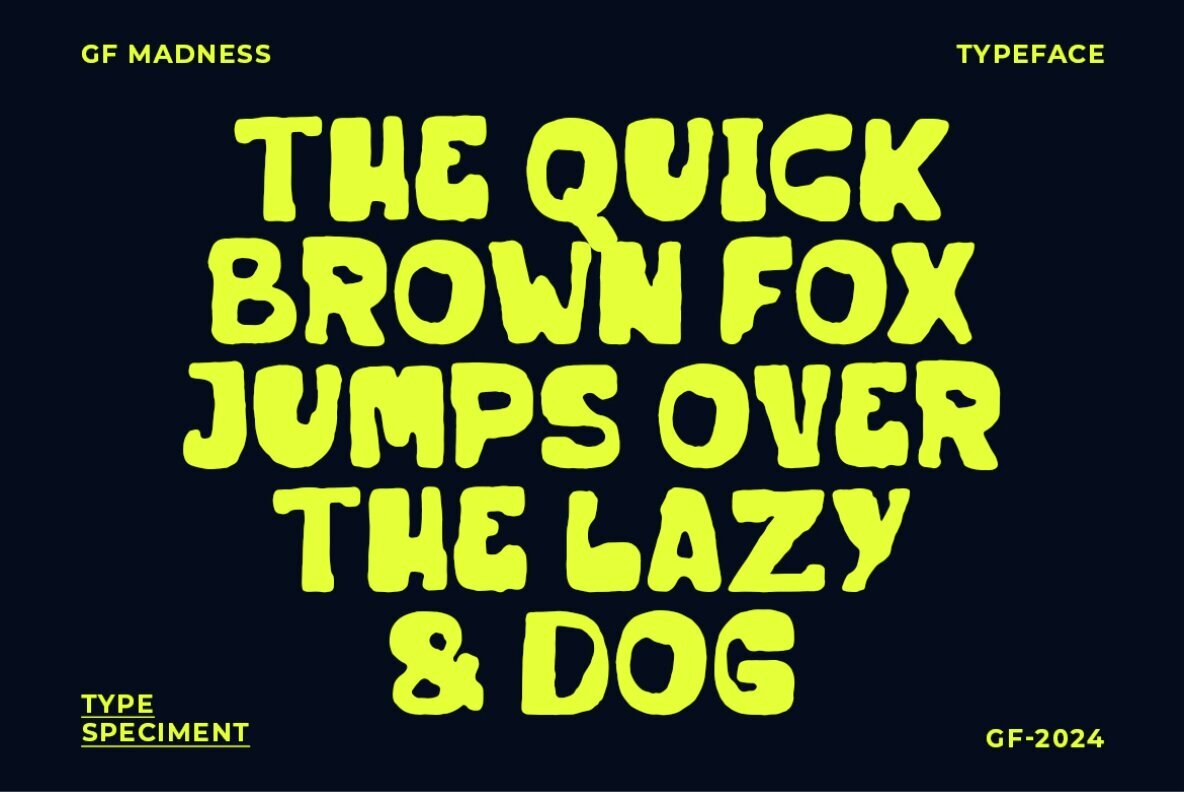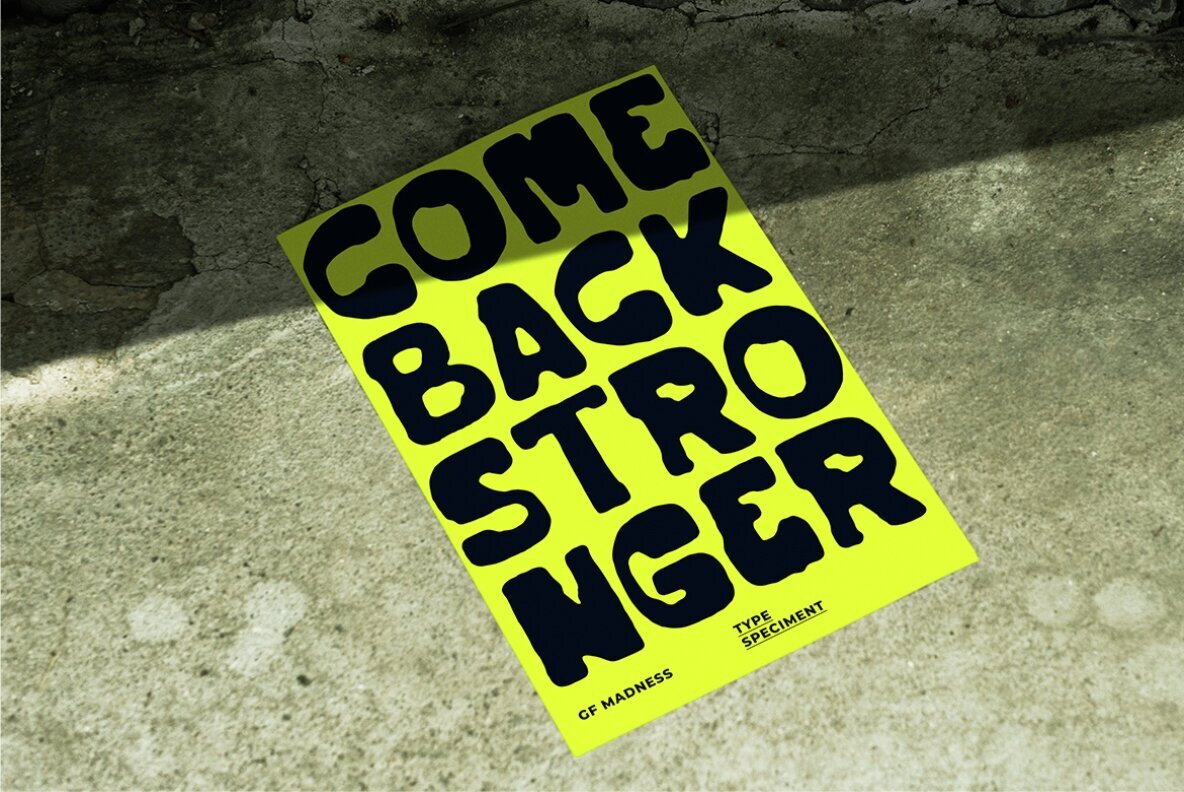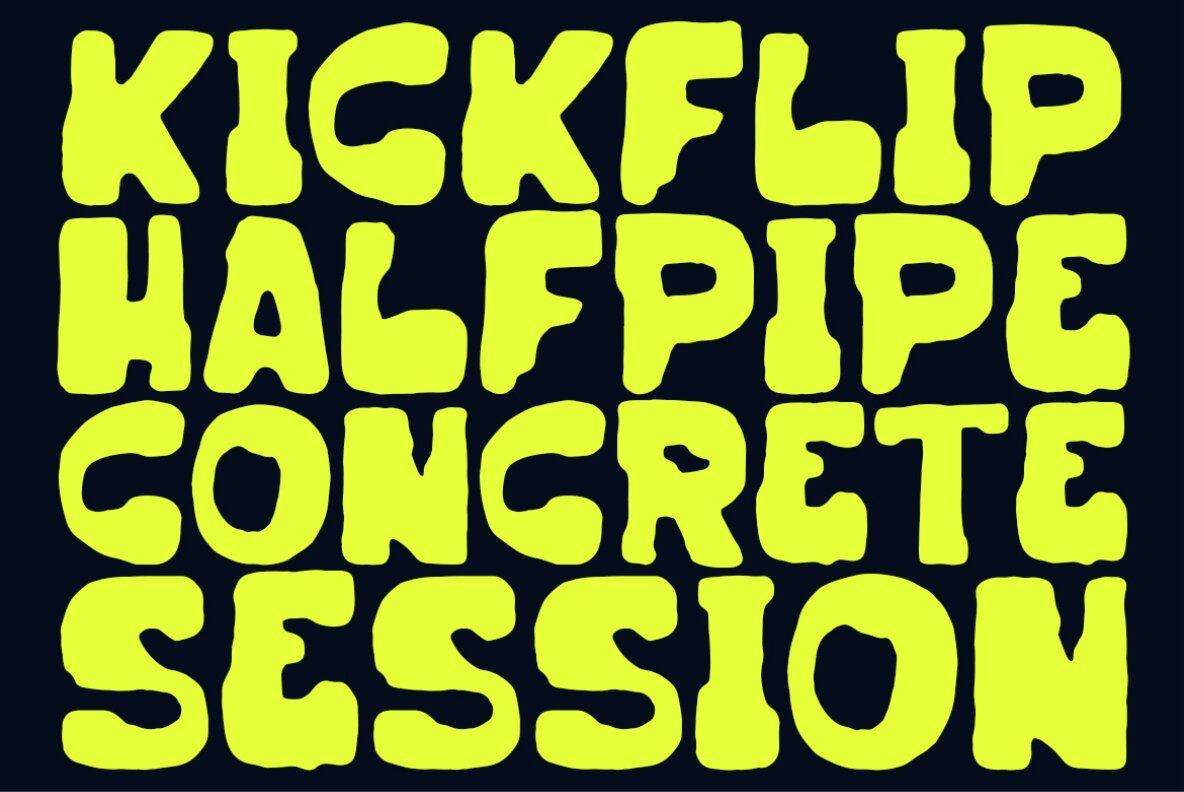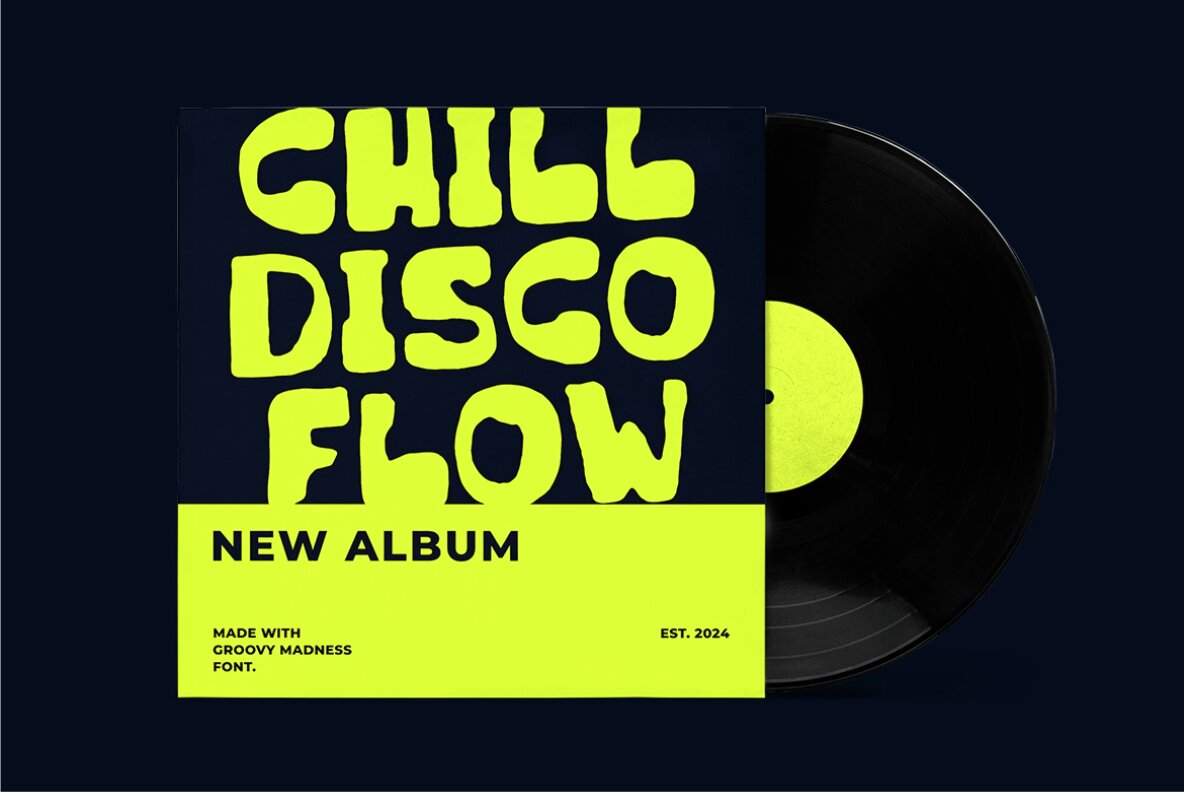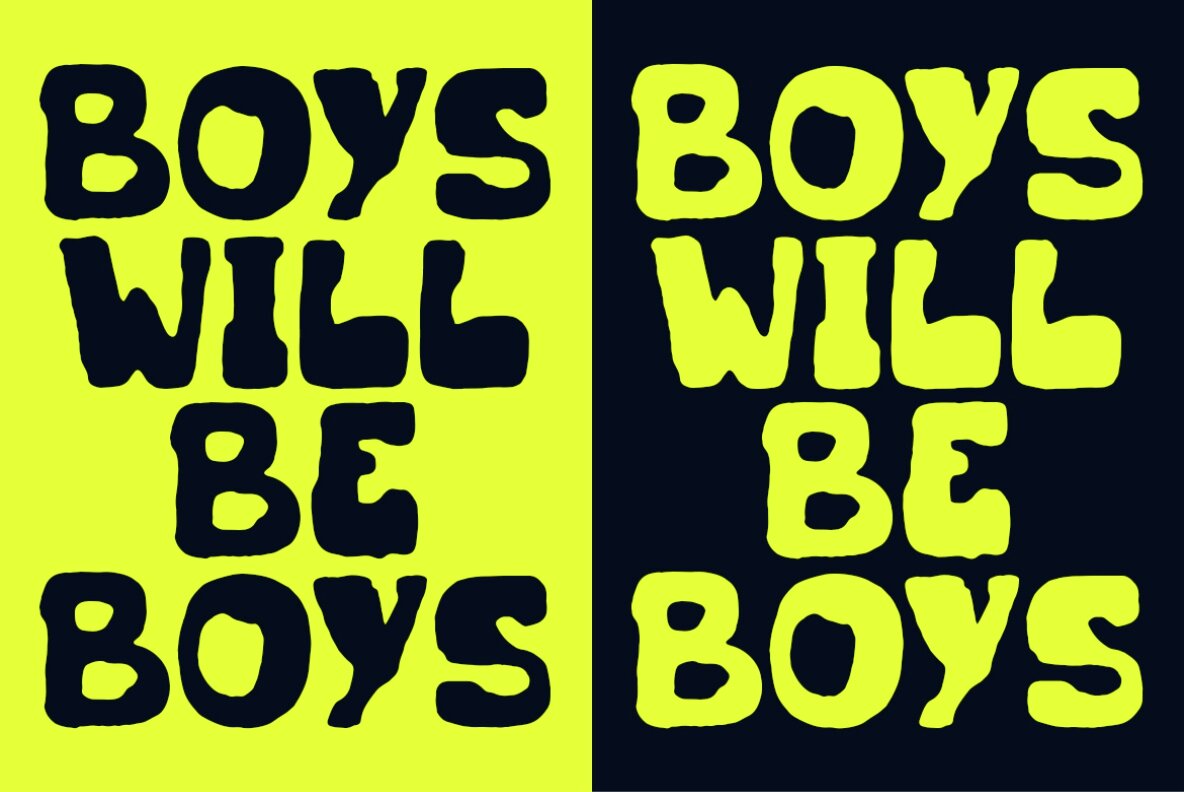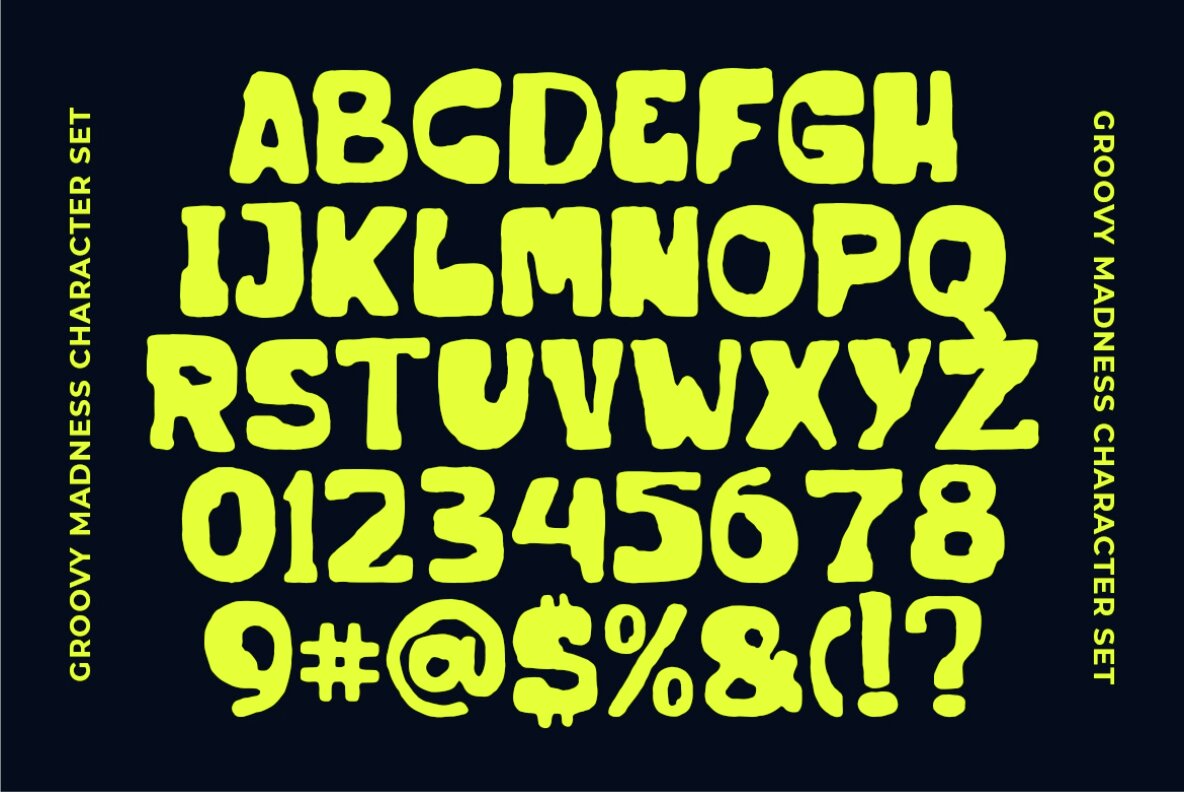
Groovy Madness Font
Groovy Madness
Groovy Madness is a hand-drawn display font that embodies a distinctive street style, ideal for adding an edgy flair to your design projects. With its rough and bold aesthetic, this font infuses a rebellious and urban vibe, making it a perfect choice for designs that need to stand out.
Featuring a unique handcrafted look, Groovy Madness offers an unconventional twist that brings boldness and attitude to any creative work. Whether you're crafting striking headlines or visually captivating posters, this eye-catching font ensures your designs are both memorable and impactful.